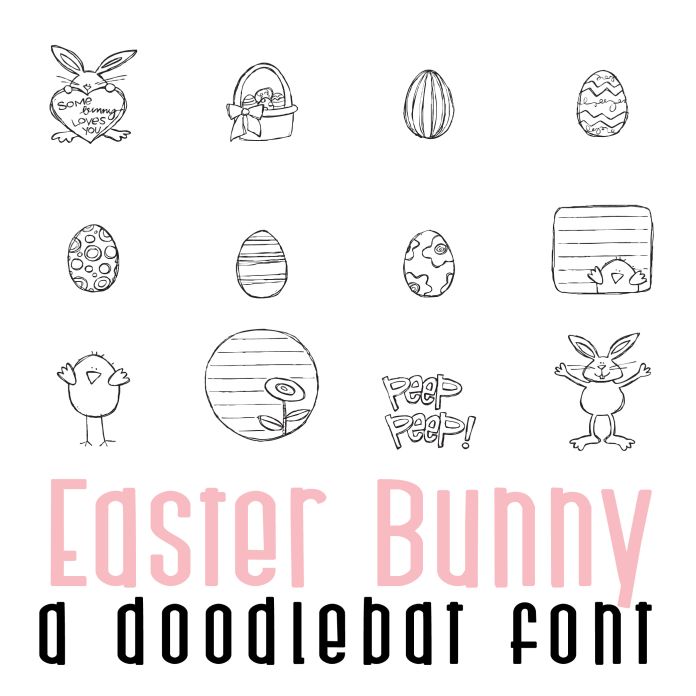
Easter Bunny Doodlebat Font is a whimsical and playful dingbat font perfect for Easter and Spring designs. It features 26 cute doodles of Easter bunnies, eggs, flowers, and more. This font adds a fun and festive touch to any project, from greeting cards to party invitations. Perfect for cards, crafts, gifts, planner stickers, classrooms, scrapbook pages and more!